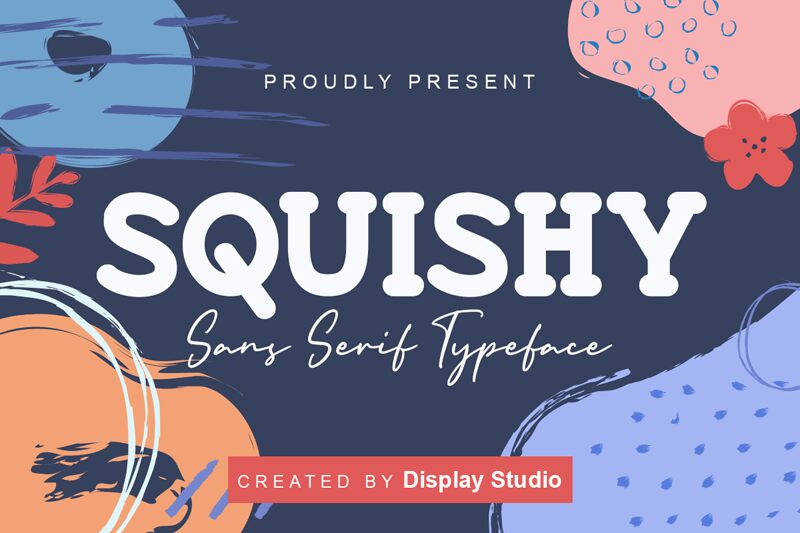
Squishy
Squishy by Display Studio is a captivating rounded sans serif font that adds a playful touch to any design project. The semi-bold weight of this typeface makes it perfect for attention-grabbing headlines, logos, and branding materials. Its soft edges and friendly curves give off a warm and welcoming vibe, making it suitable for children's books, product packaging, and social media graphics. Squishy's versatility extends beyond the creative realm as well - its legibility makes it ideal for informative business reports and presentations. Let Squishy infuse your designs with a touch of whimsy today!